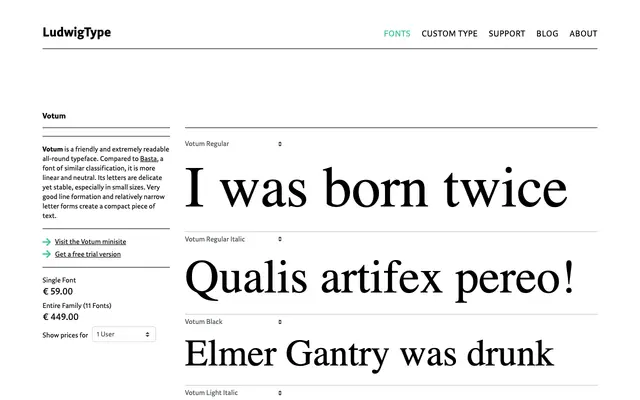
Votum
A four-weight text serif from Ludwig with small caps and italics across three of its four weights.
Votum offers Light, Regular, Bold and Black weights, with italics and small caps available at Light, Regular and Bold. The small caps provision makes it well suited to long-form editorial and book work where hierarchy and running text need to coexist. The Black weight without small caps suggests a role at display sizes as well as text.
The upright, structured letterforms with clear weight contrast and small caps support point to a transitional serif tradition, suited to long-form text setting.